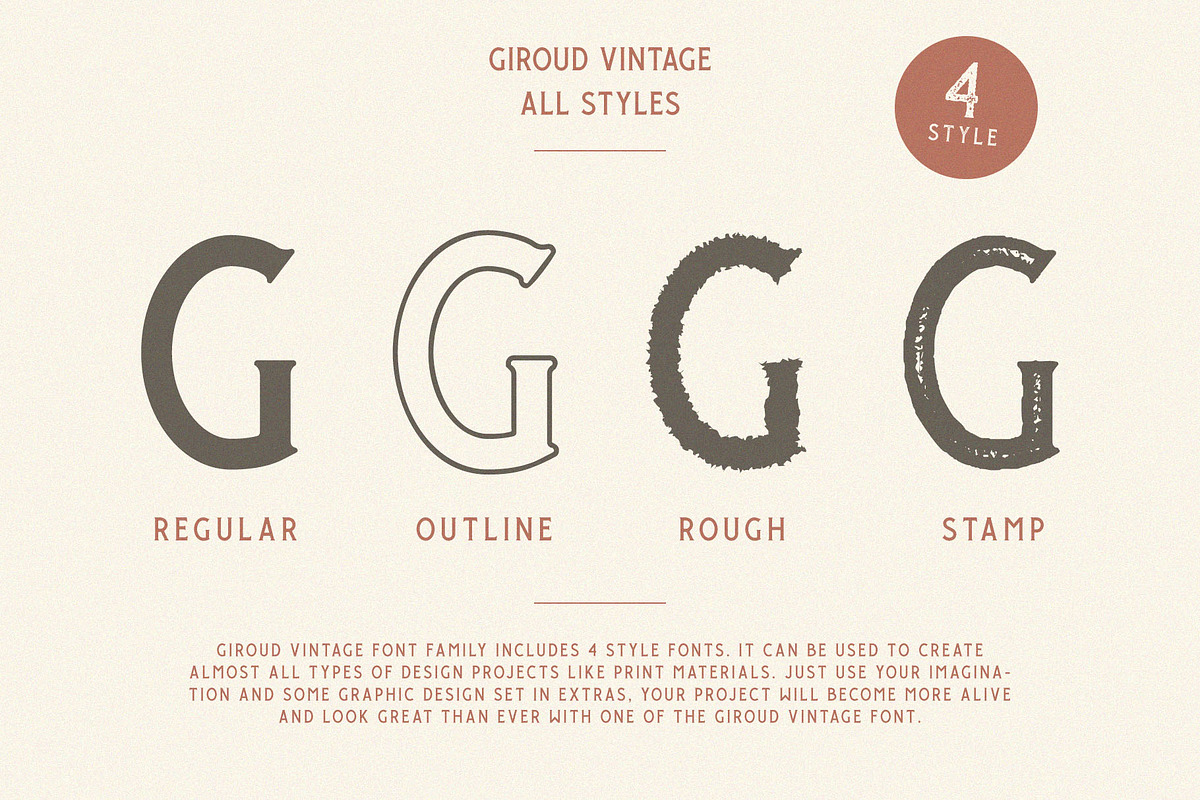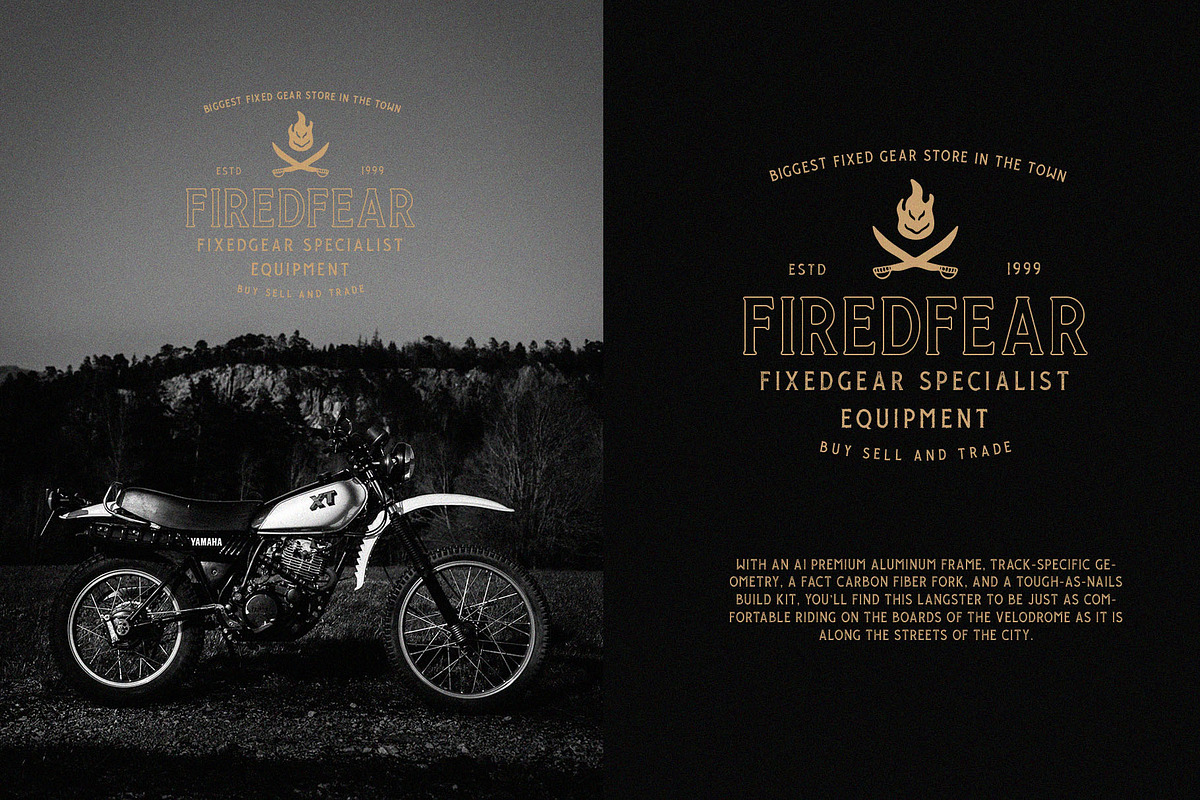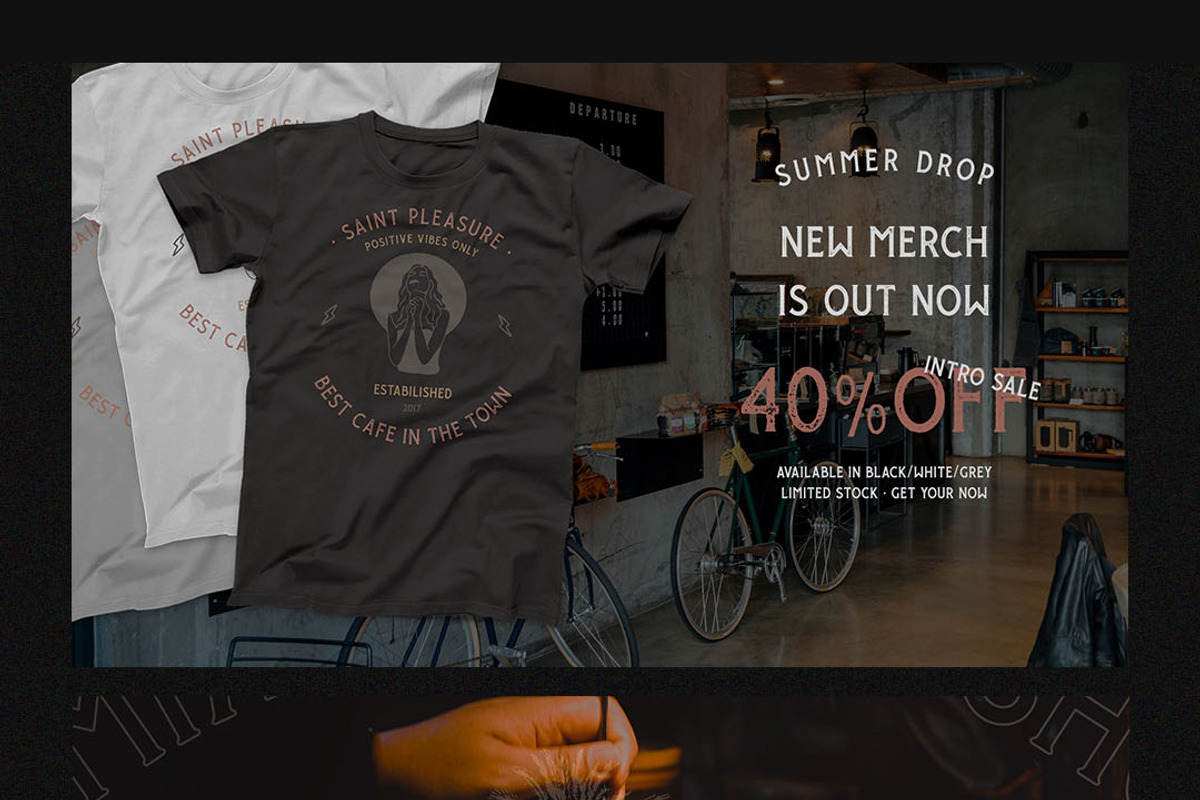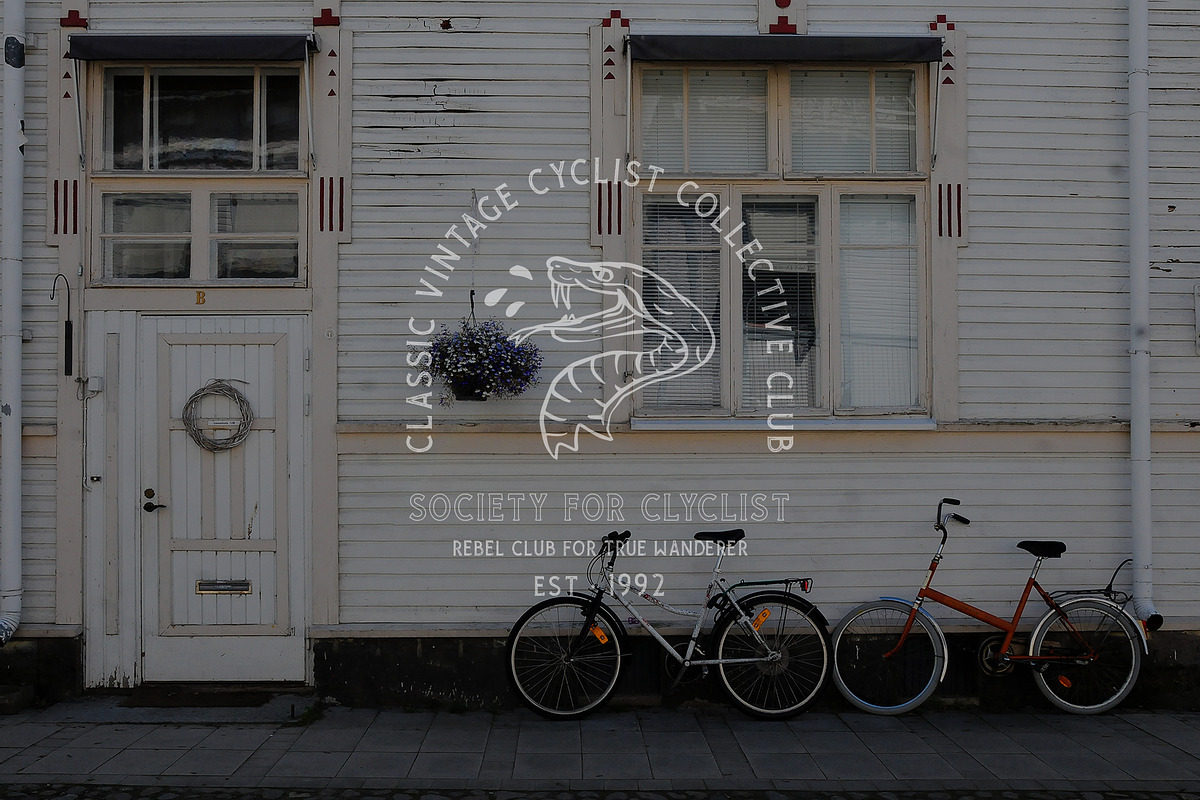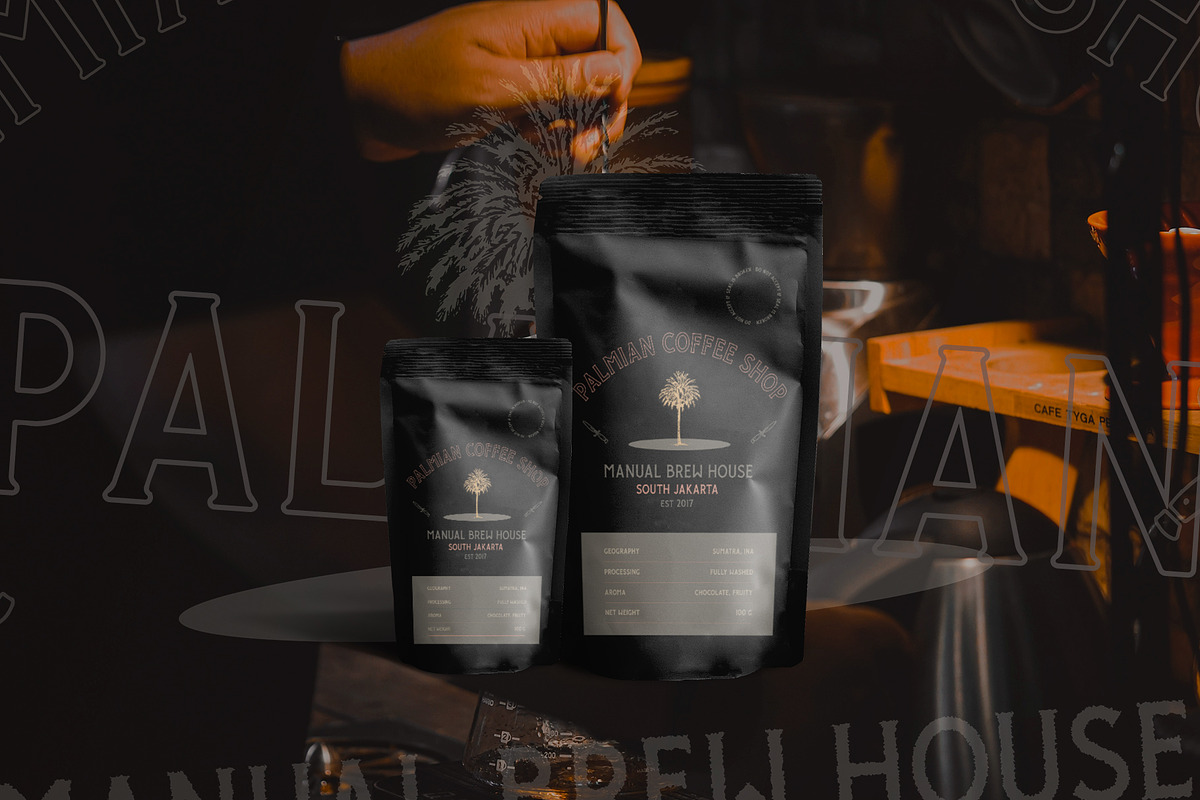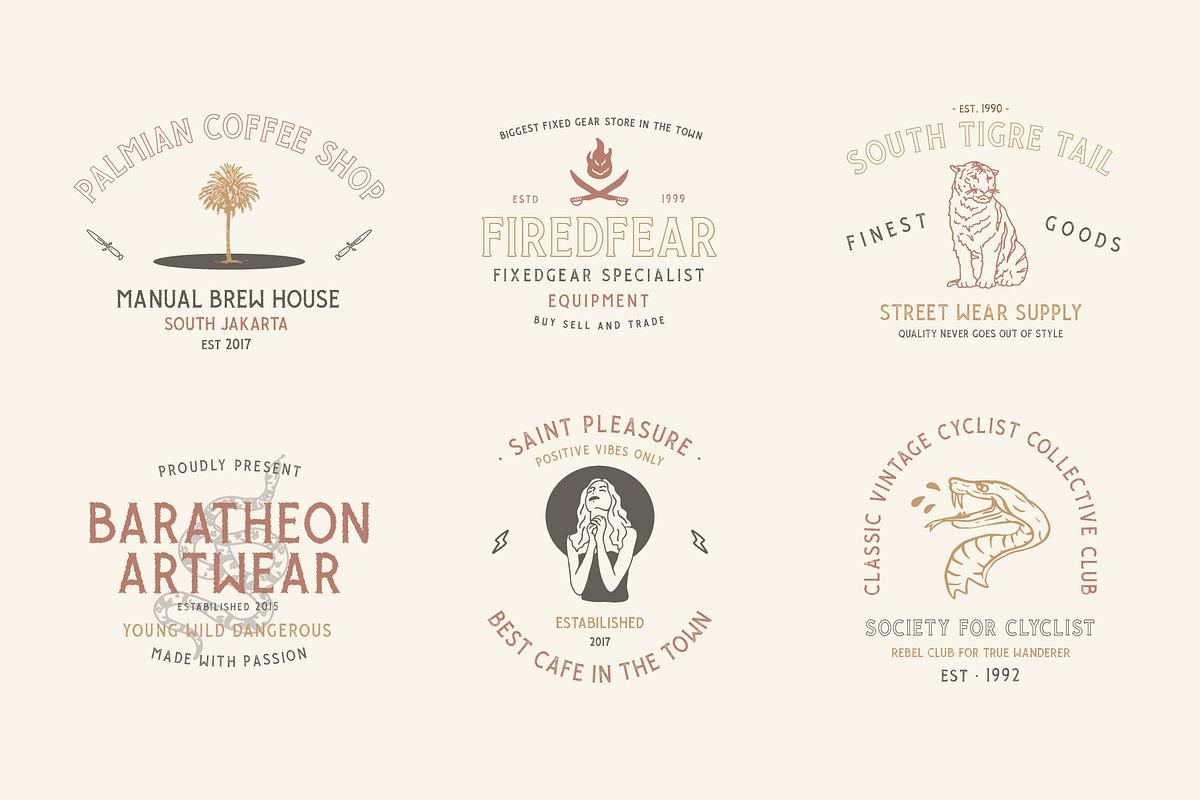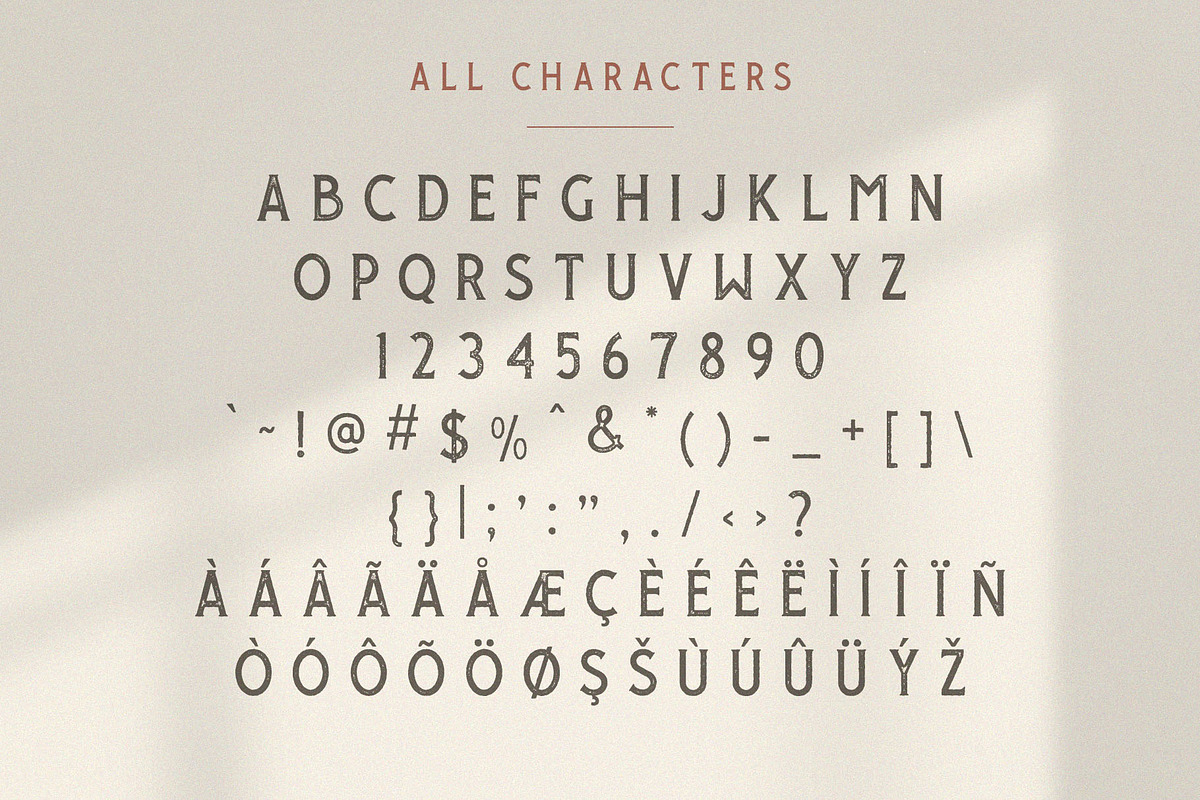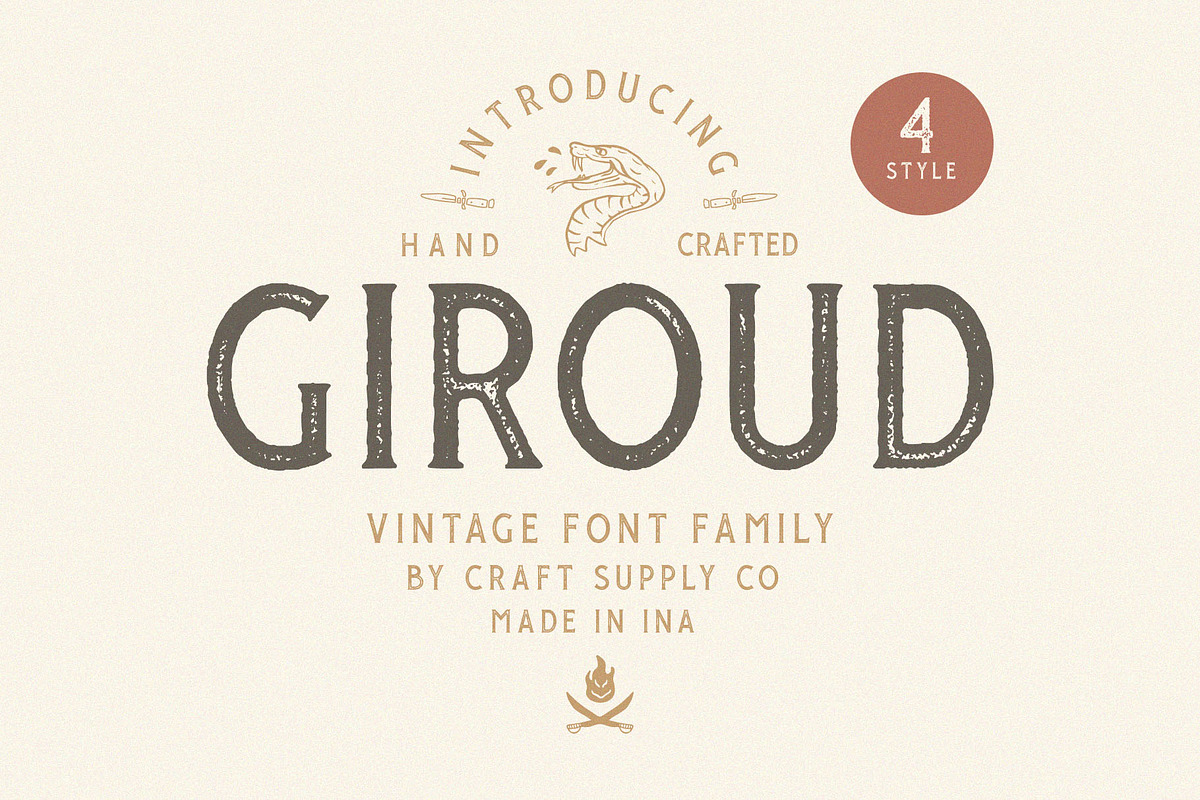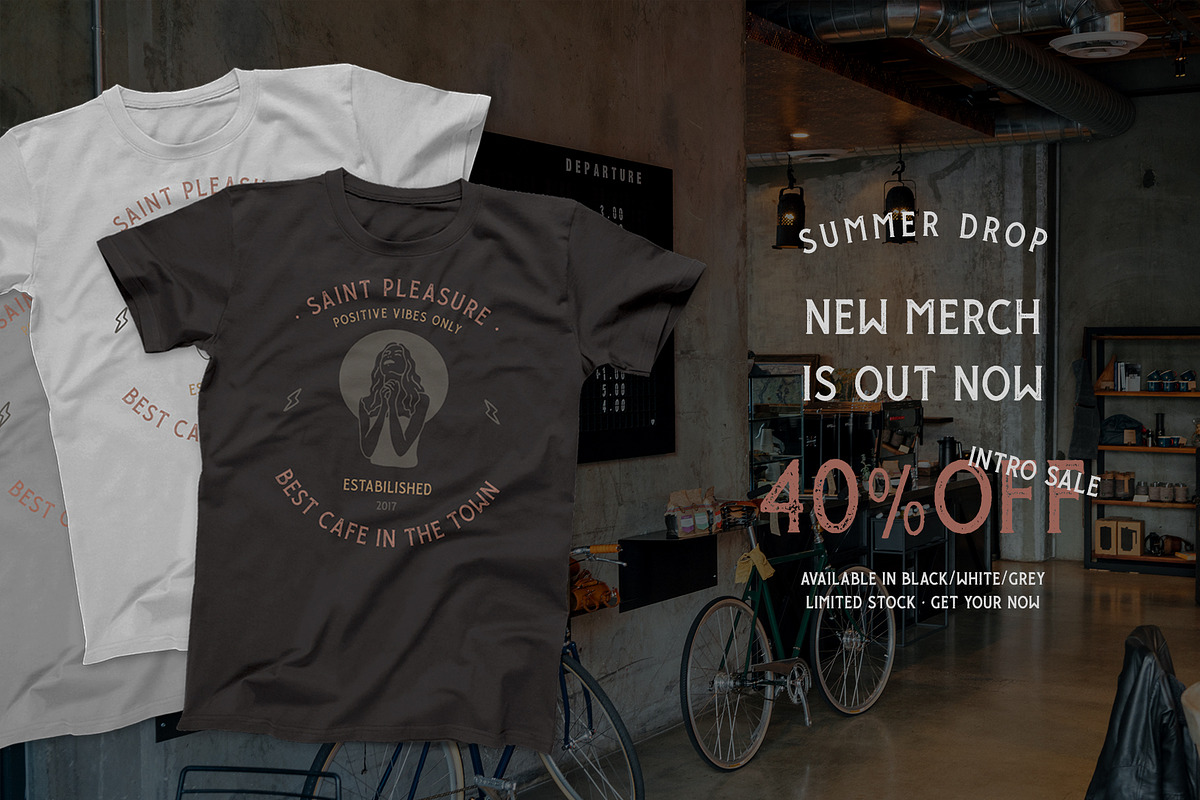
Giroud Vintage Font Family + Bonus
Introducing Giroud Vintage Font Family + Bonus includes 4 Style Fonts. It can be used to create almost all types of design projects like print materials. Just use your imagination and some graphic design set in Extras, your project will become more alive and look great than ever with one of the Giroud Vintage Font.
You want to make a greeting card or a package design, or even a brand identity, craft design, any DIY project, book title, wedding font, pop vintage design, retro design or any purpose to make your art / design project look pretty and trendy? Feel free to play with all style of this font!
- Giroud Regular
- Giroud Outline
- Giroud Rough
- Giroud Stamp
- All Caps Fonts
- Accents (Multilingual characters) (AÀÁÂÃÄÅCÇDÐEÈÉÊËIÌÍÎÏNÑOØÒÓÔÕÖUÙÜÚÛWYÝŸỲŸÆŒßÞ)